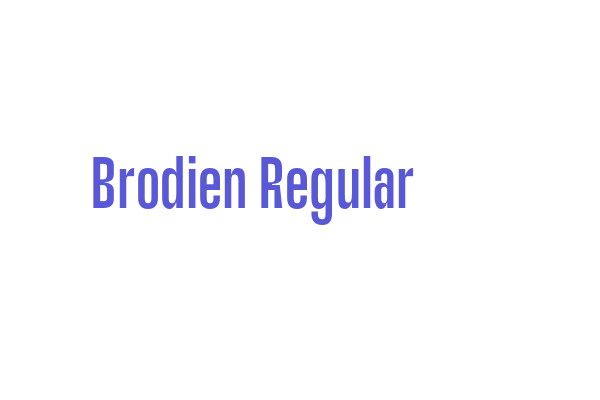
Brodien Regular is a sleek and modern sans-serif font designed by Yukita Creative and Abdul Artega. Part of the Brodien font family, this Regular style is perfect for creating clean and professional designs. Ideal for a wide range of projects, from branding to web design, Brodien Regular stands out with its simplicity and versatility.
Font Name: Brodien Regular
Designer: Yukita Creative, Abdul Artega
Font Family: Brodien